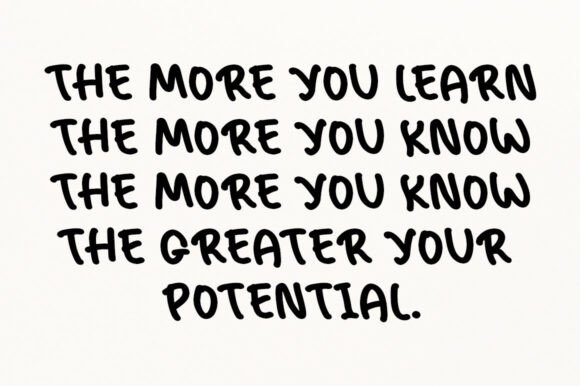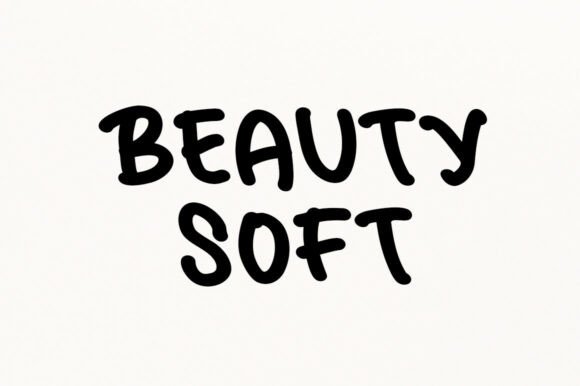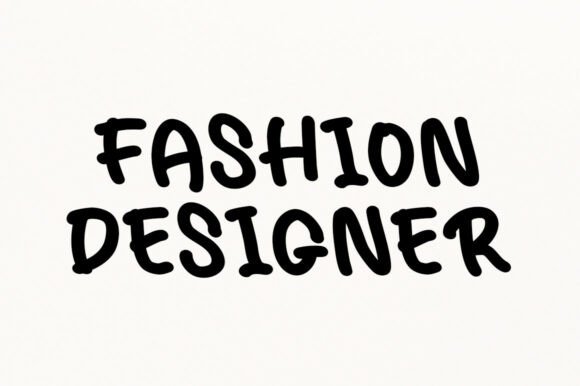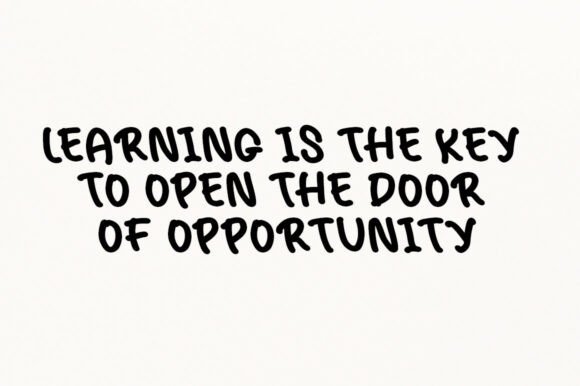
Ganesha Font: A Whimsical and Handwritten Delight for Your Creative Projects
Are you a designer, crafter, or DIY enthusiast looking for a font that can add a touch of magic to your creative projects? Look no further than Ganesha, a delightful fusion of whimsical and handwritten elements that is sure to enchant your audience. In this article, we’ll explore the features and benefits of Ganesha Font, and how it can elevate your blog articles, invitations, diary pages, greeting cards, and more.
What is Ganesha Font?
Ganesha Font is a unique and charming typeface that combines the playfulness of handwritten fonts with the sophistication of whimsical design. Its distinctive characters are carefully crafted to convey a sense of warmth, intimacy, and personality, making it perfect for projects that require a personal touch.
Features of Ganesha Font
- Whimsical and Handwritten: Ganesha Font boasts a delightful fusion of whimsical and handwritten elements, making it perfect for creative projects that require a touch of personality.
- Unique Character Set: Each character in Ganesha Font is carefully designed to be distinct and recognizable, ensuring that your text is both legible and visually appealing.
- Versatile: Ganesha Font is suitable for a wide range of applications, from blog articles and invitations to diary pages and greeting cards.
- Easy to Read: Despite its whimsical nature, Ganesha Font is surprisingly easy to read, making it perfect for longer texts and paragraphs.
Using Ganesha Font in Your Creative Projects
Ganesha Font is an incredibly versatile typeface that can be used in a variety of creative projects. Here are a few ideas to get you started:
Blog Articles
Add a touch of personality to your blog articles with Ganesha Font. Its whimsical nature makes it perfect for lifestyle, fashion, and food blogs, while its legibility ensures that your readers can easily follow your text.
Birthday Invitations
Make your birthday invitations stand out with Ganesha Font. Its handwritten feel adds a touch of intimacy and warmth, making your guests feel special and included.
Diary Pages
Take your diary pages to the next level with Ganesha Font. Its unique character set and whimsical design make it perfect for jotting down your thoughts, dreams, and inspirations.
Greeting Cards
Add a sprinkle of coziness to your greeting cards with Ganesha Font. Its warm and inviting nature makes it perfect for conveying appreciation, sympathy, or congratulations.
Why Choose Ganesha Font?
So why choose Ganesha Font for your creative projects? Here are a few compelling reasons:
- Unique and Eye-Catching: Ganesha Font is a one-of-a-kind typeface that is sure to grab attention and leave a lasting impression.
- Easy to Use: Ganesha Font is surprisingly easy to use, even for those with limited design experience.
- Versatile: Ganesha Font can be used in a wide range of applications, from digital projects to print materials.
In conclusion, Ganesha Font is a delightful fusion of whimsical and handwritten elements that is sure to add a touch of magic to your creative projects. Its unique character set, versatility, and ease of use make it perfect for designers, crafters, and DIY enthusiasts looking to elevate their blog articles, invitations, diary pages, greeting cards, and more. So why wait? Download Ganesha Font today and discover a world of creative possibilities!